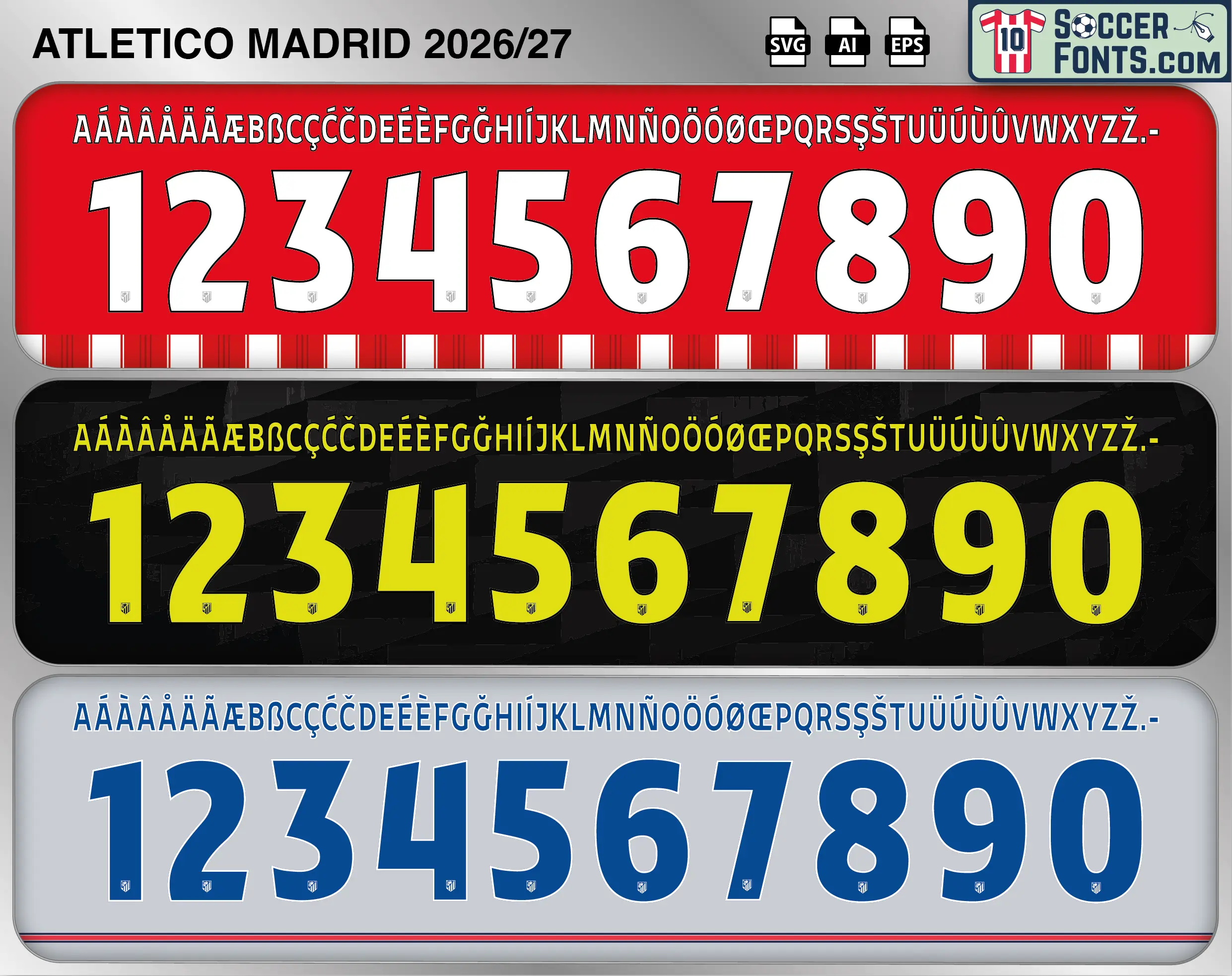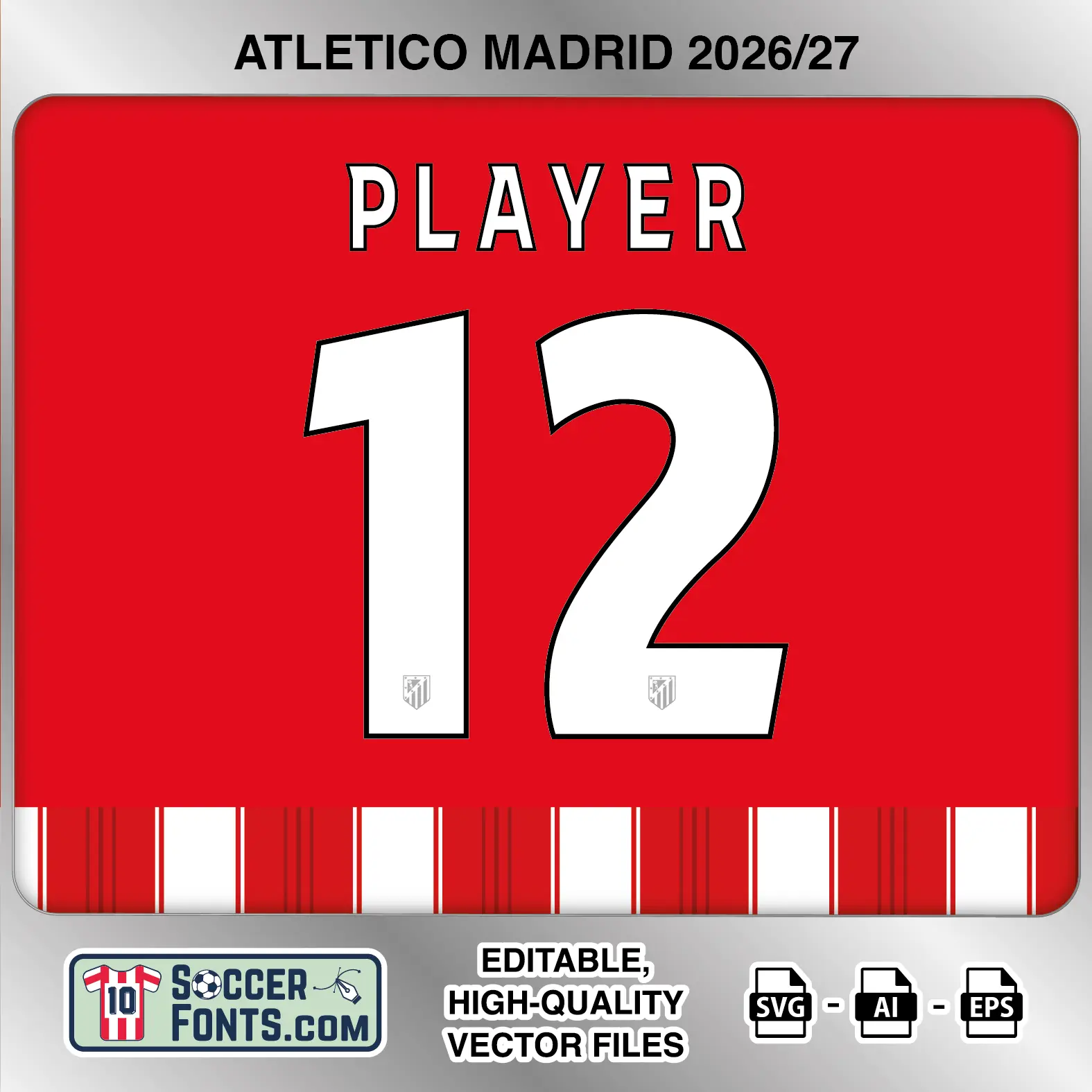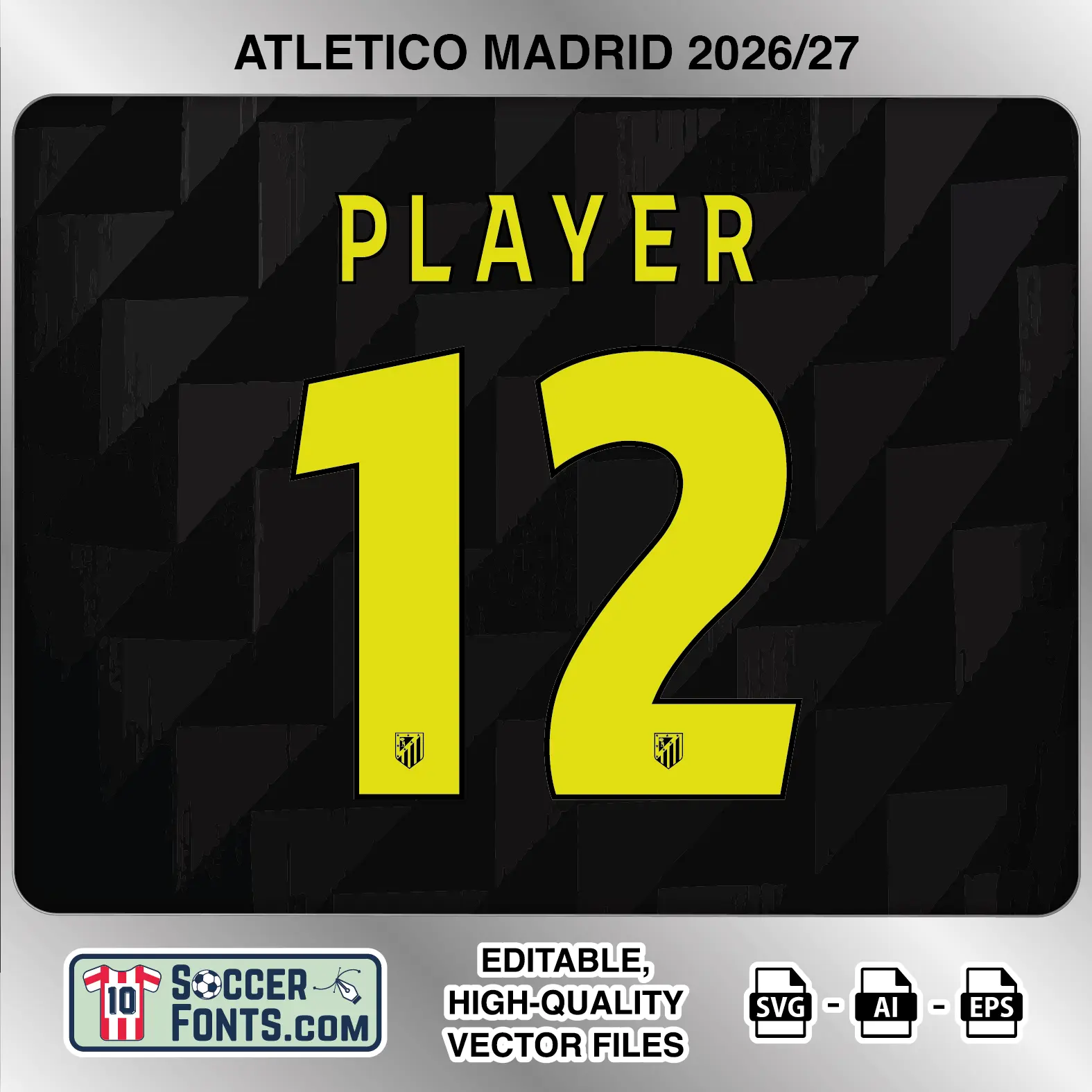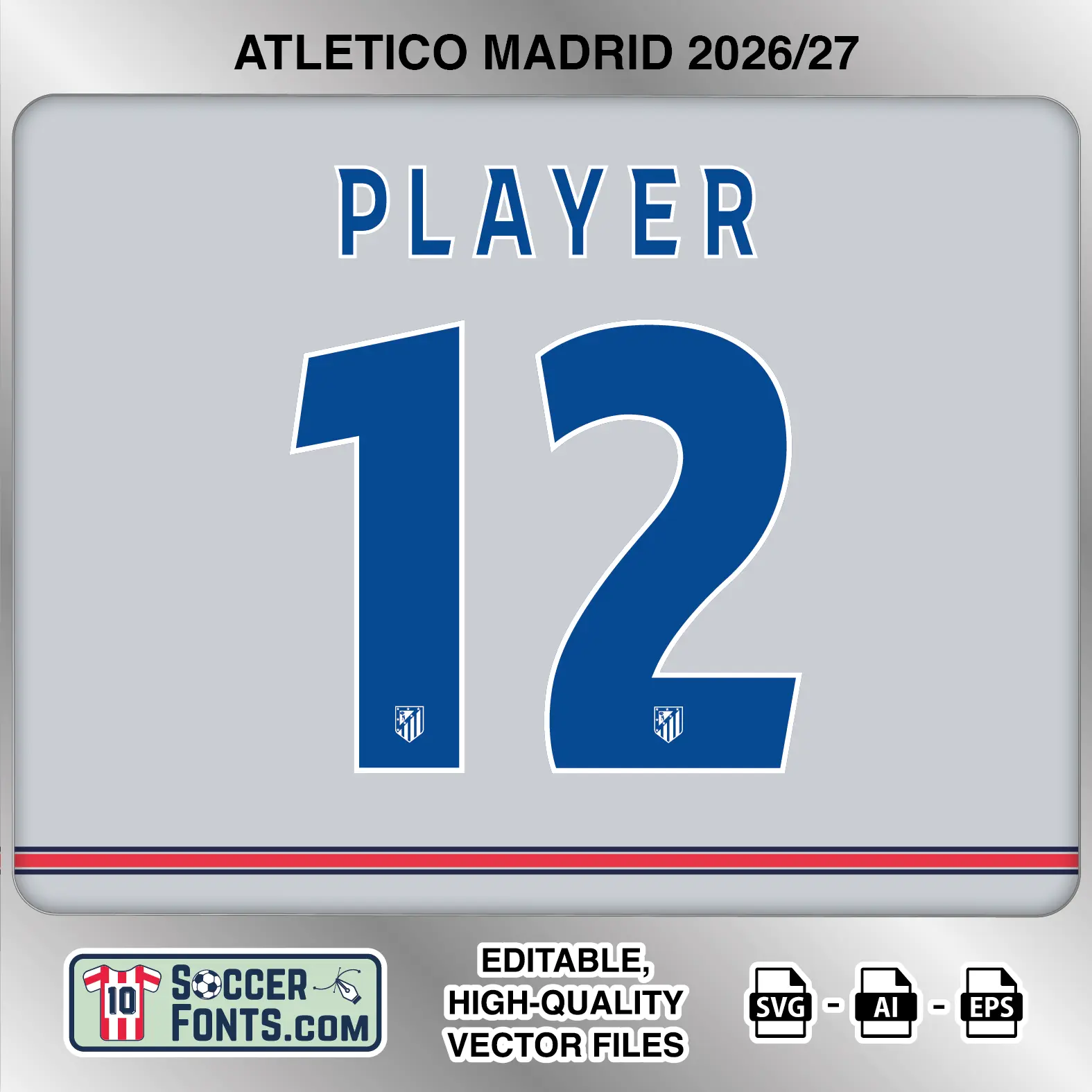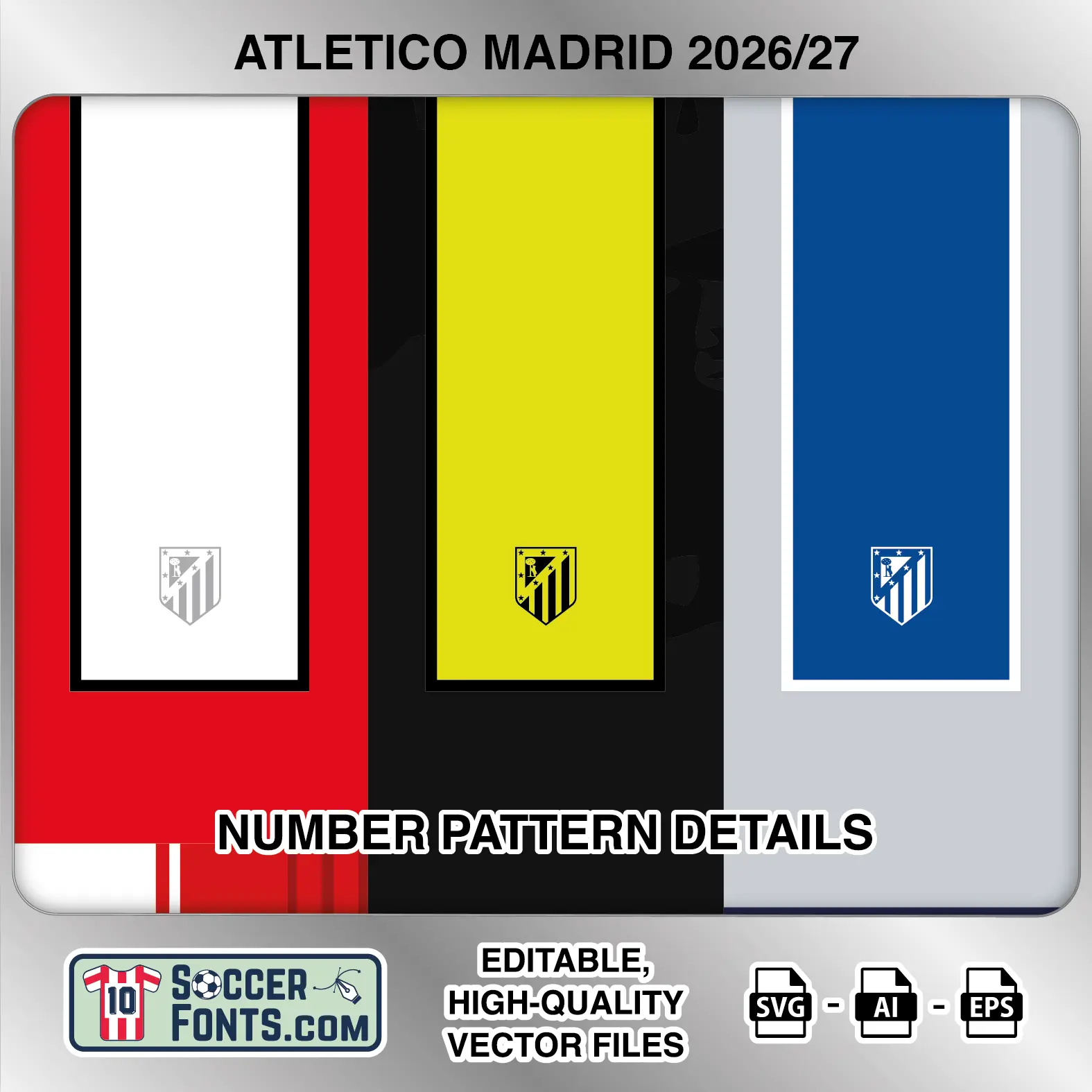
About Atletico Madrid 2026-27 Font
Download Atletico Madrid 2026-27 font, an editable soccer jersey lettering design in vector format inspired by the Atletico Madrid kit style used during the 2026-27 football season. This football font artwork is prepared for football shirt recreations, custom jersey projects, football kit mockups and sports graphic design workflows.
Visual Identity of the Font Design :
The Atletico Madrid 2026-27 lettering uses a condensed uppercase alphabet paired with large, heavy numbers designed around simple geometric forms. The player-name letters are tall and narrow, with straight sides and relatively tight spacing. The numbers are substantially wider and bolder, combining flat terminals with rounded sections on figures such as 2, 3, 6, 8, 9 and 0. Several numerals have slightly angled top and bottom edges, preventing the set from appearing completely rectangular. The 1 has a broad diagonal upper flag, while the 4 uses an open construction and the 7 transitions from a wide horizontal top into a tapered diagonal stroke. A small Atletico Madrid crest is positioned near the bottom of every numeral. The three examples maintain the same character construction while changing color treatment: white with a dark edge on the red home background, bright yellow on the black away treatment, and blue with a light contrasting edge on the pale third-kit background.
Atletico Madrid 2026-27 football shirt font showing alphabet letters and jersey numbers
Atletico Madrid 2026-27 Font